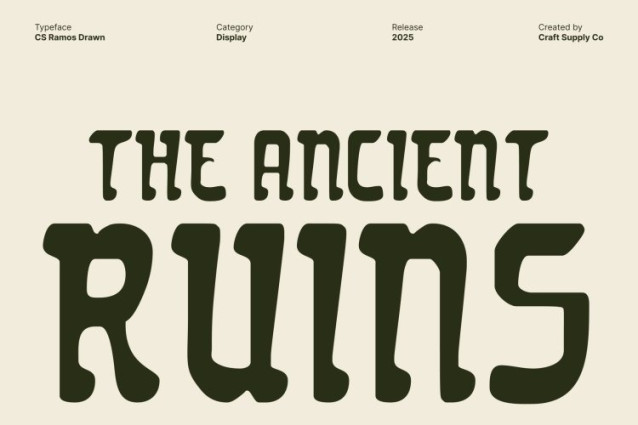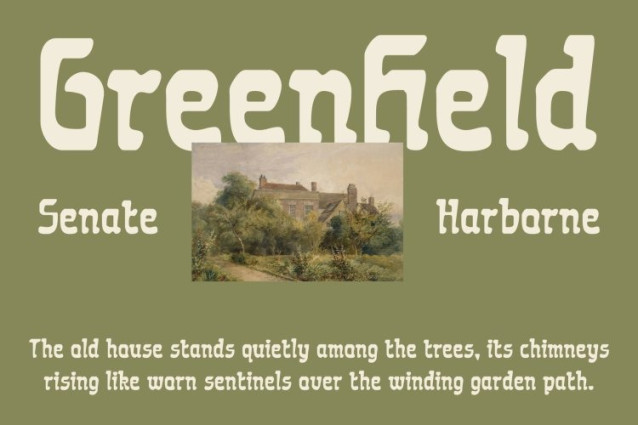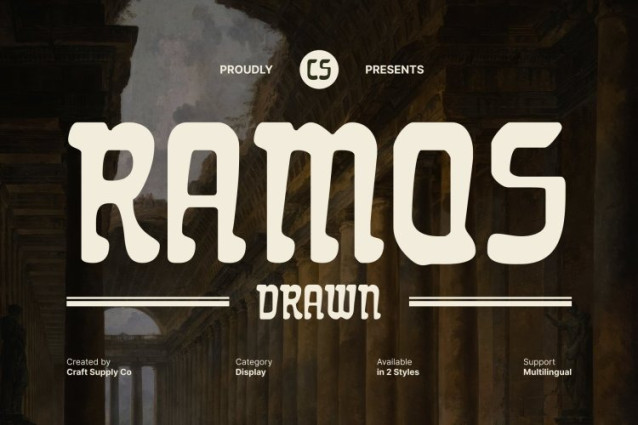
CS Ramos Drawn Font
CS Ramos Drawn Font This is a lively and funky display font designed to radiate pure creative energy. With its bold, expressive shapes and playful structure, this font immediately brings joy, personality, and boldness to any project. Each character feels dynamic and full of movement, making your design look fun, vibrant, and unmistakably original.
Joyful, Bold, and Full of Personality
Crafted to stand out, this font embraces exaggerated forms and energetic curves that grab attention at first glance. The fun, upbeat character of the font makes it perfect for layouts that need a strong visual voice whether you’re designing for entertainment, youth culture, or artistic expression. It’s bold, it’s joyful, and it’s ready to make your message shine.
Hand-Drawn Texture for Friendly, Artistic Appeal
A charming drawn effect enhances the font with a warm, handcrafted touch. This texture adds personality, friendliness, and an approachable feel that softens the bold shapes while giving them depth and artistic flair. The hand-drawn finish ensures every letter feels unique, expressive, and full of creative spirit.
Perfect for Music Projects, Posters, and Creative Branding
CS Ramos Drawn is ideal for designers who want to inject fun and artistry into their work. Use it for music-related visuals, bold posters, playful branding, event graphics, merchandise, or any creative project looking for a lively and memorable style.